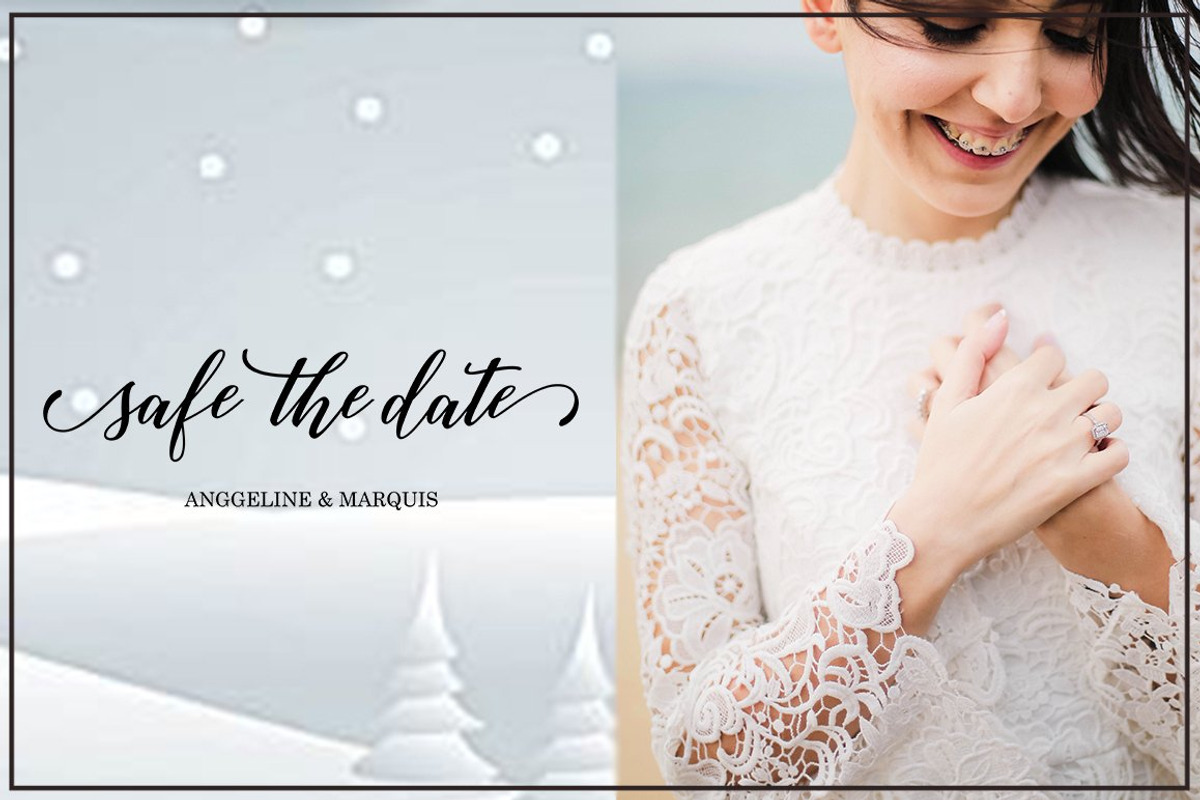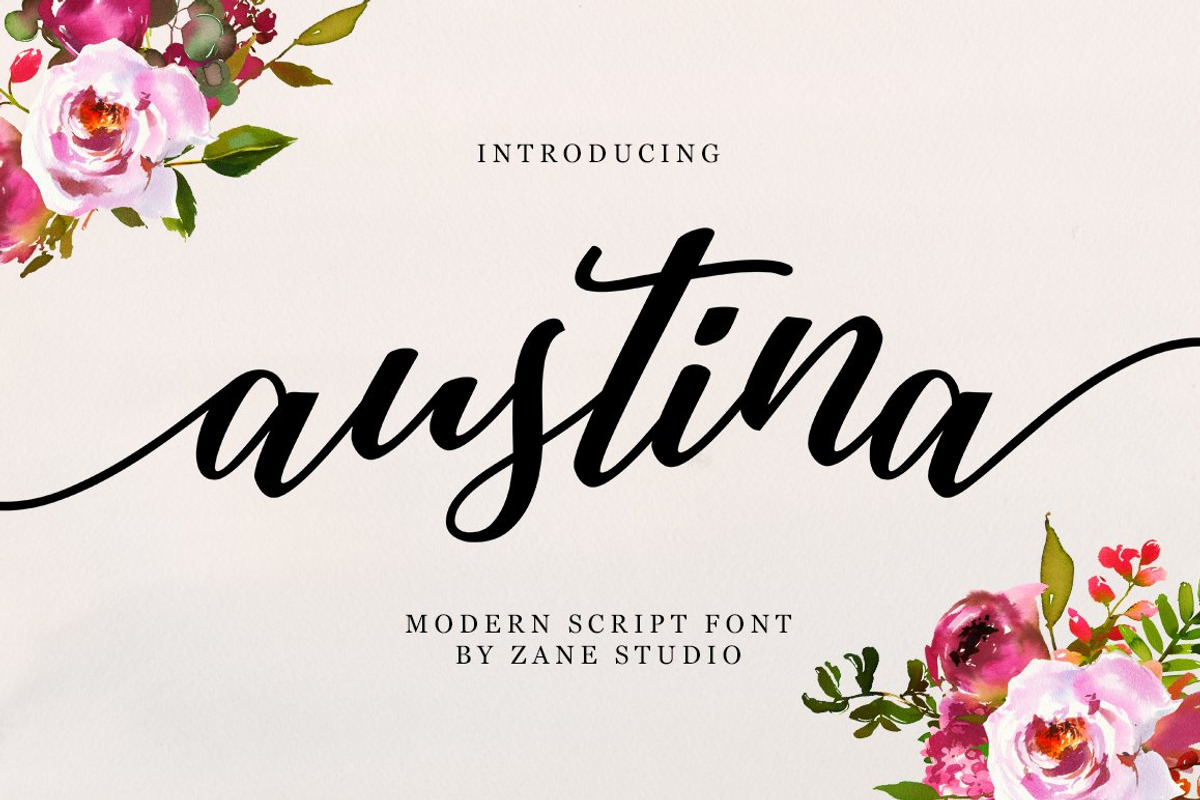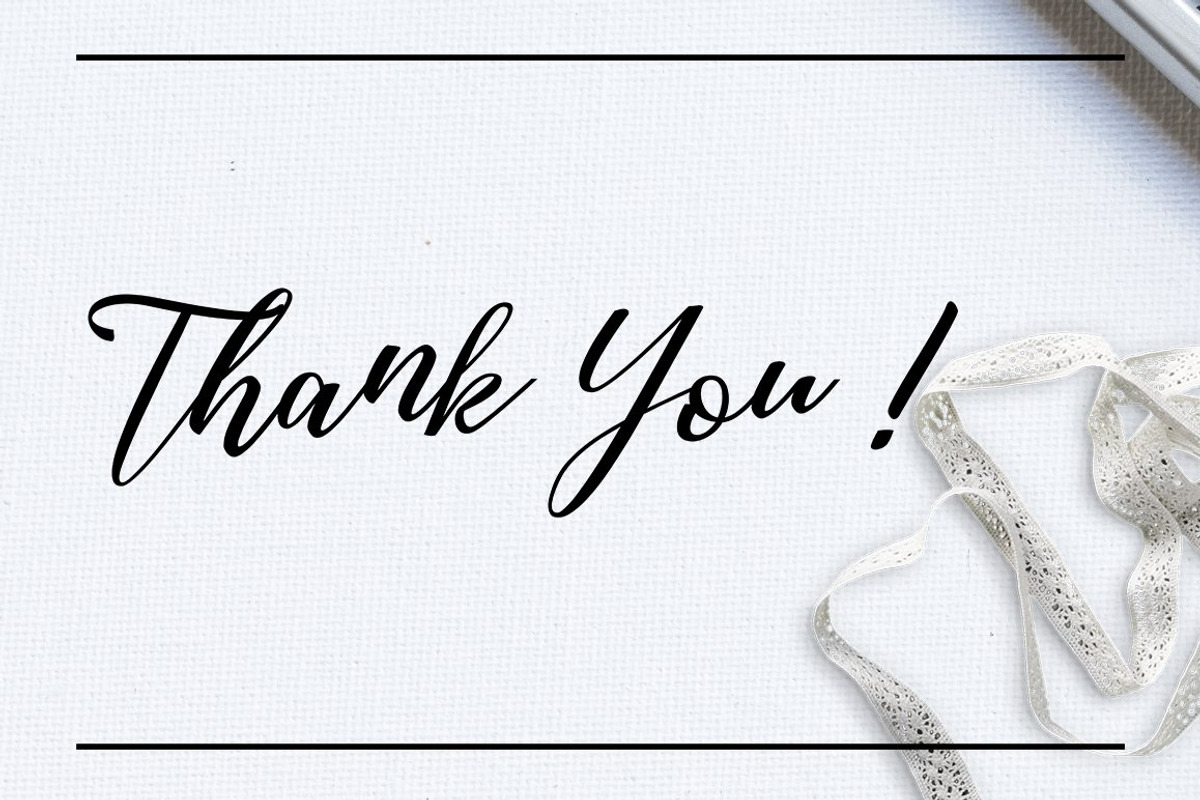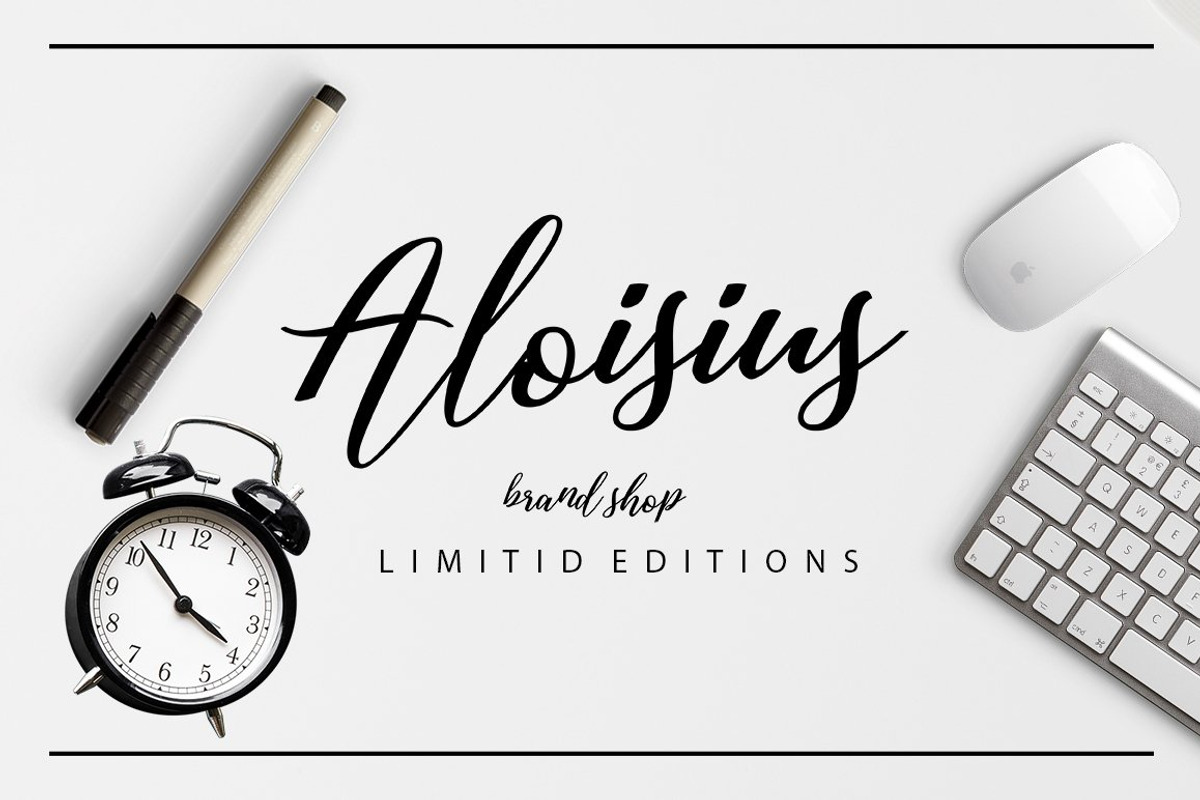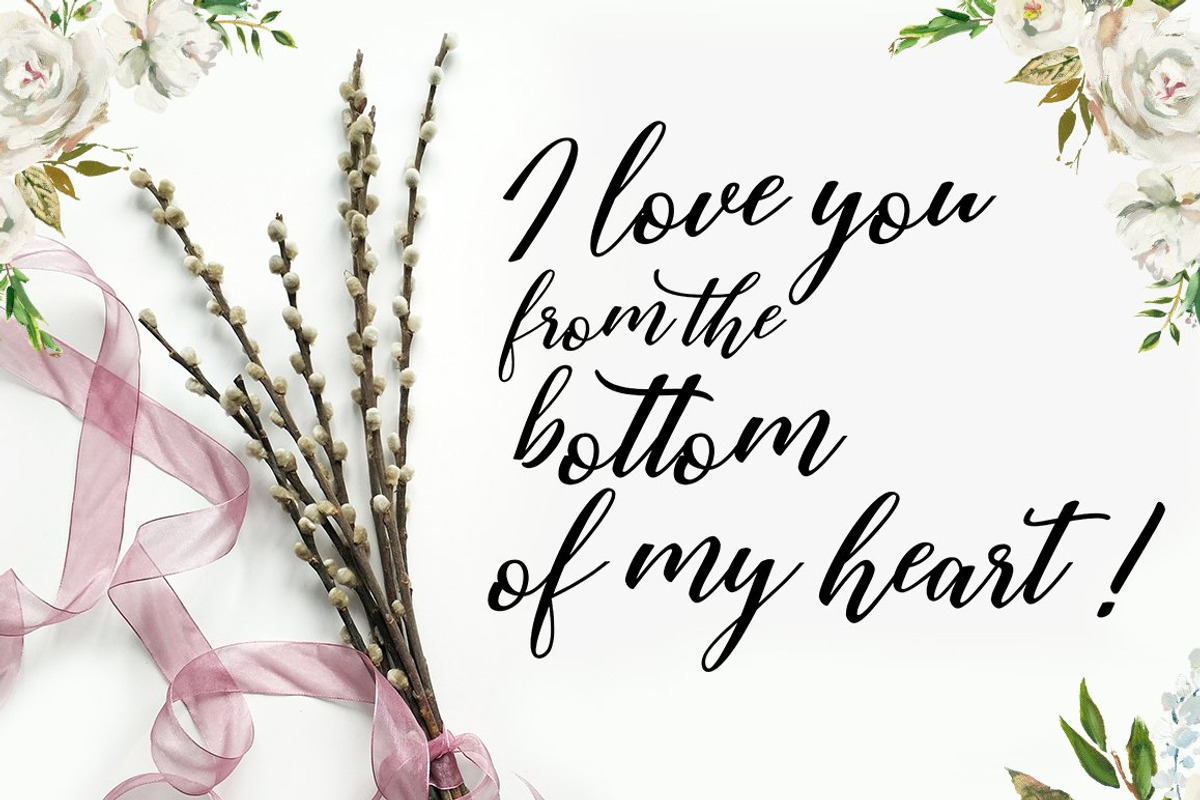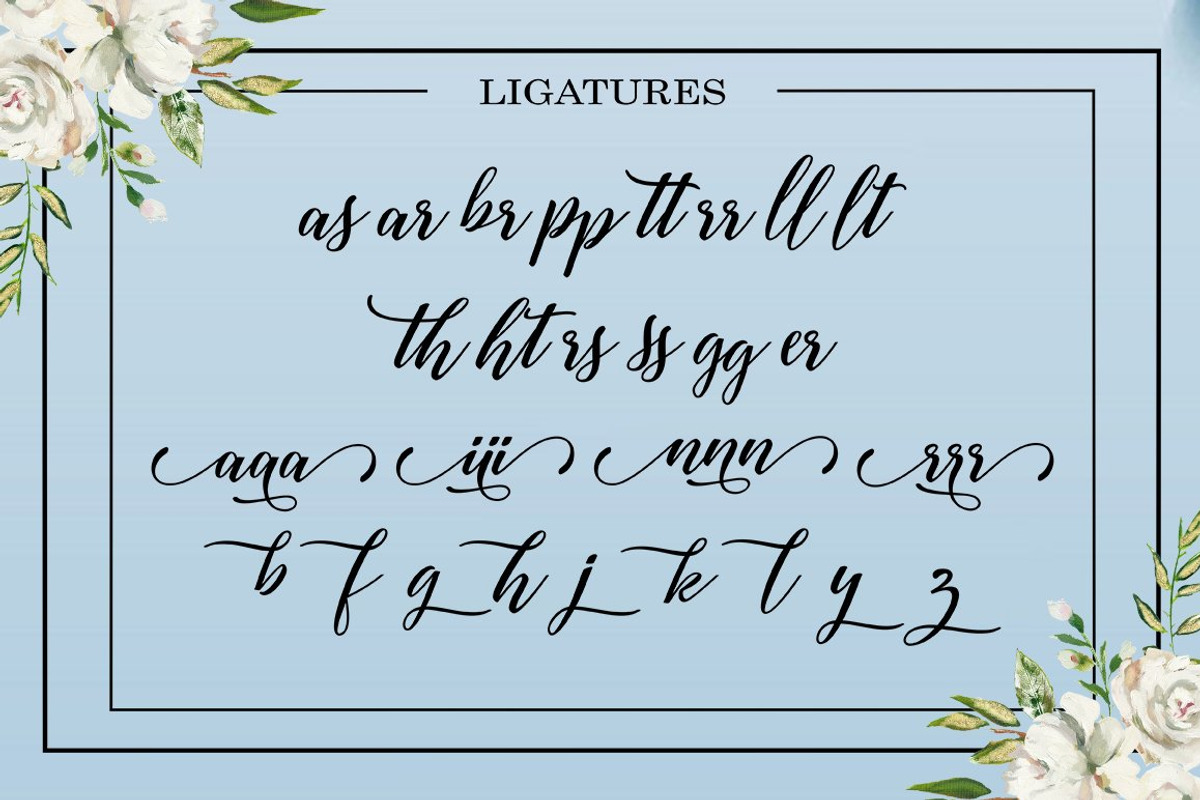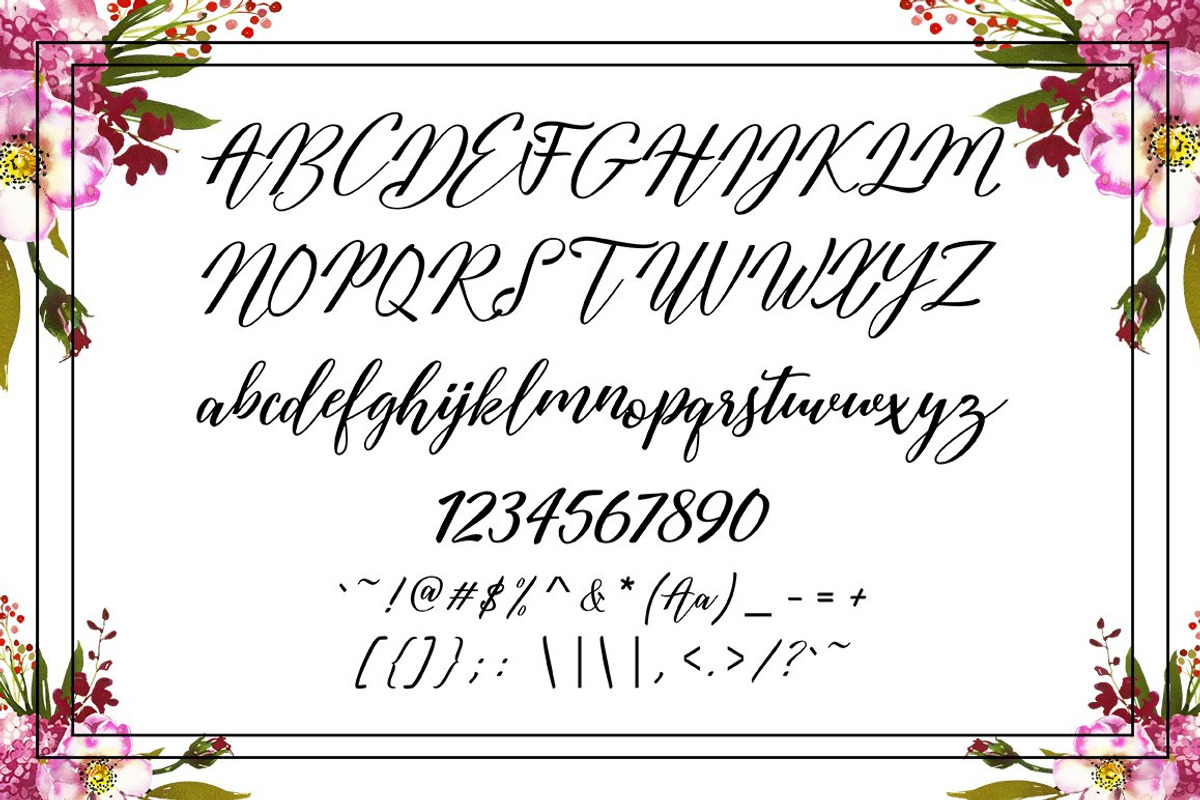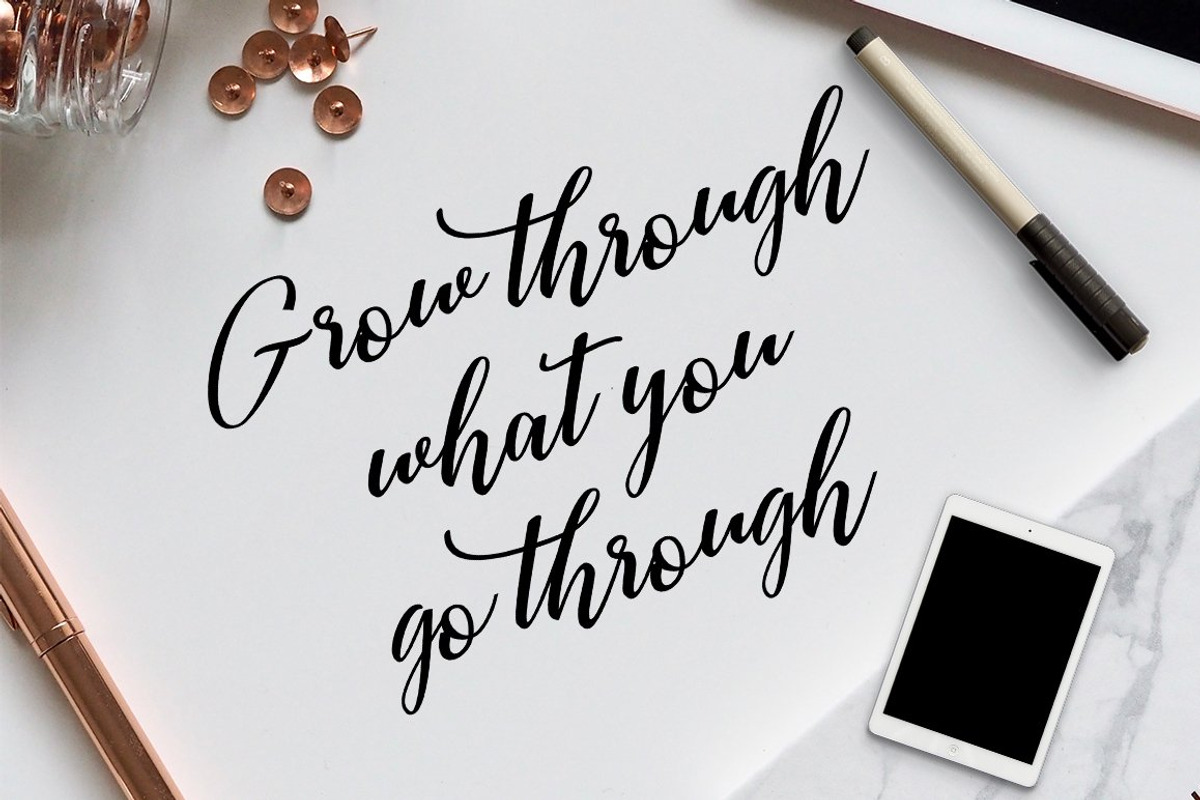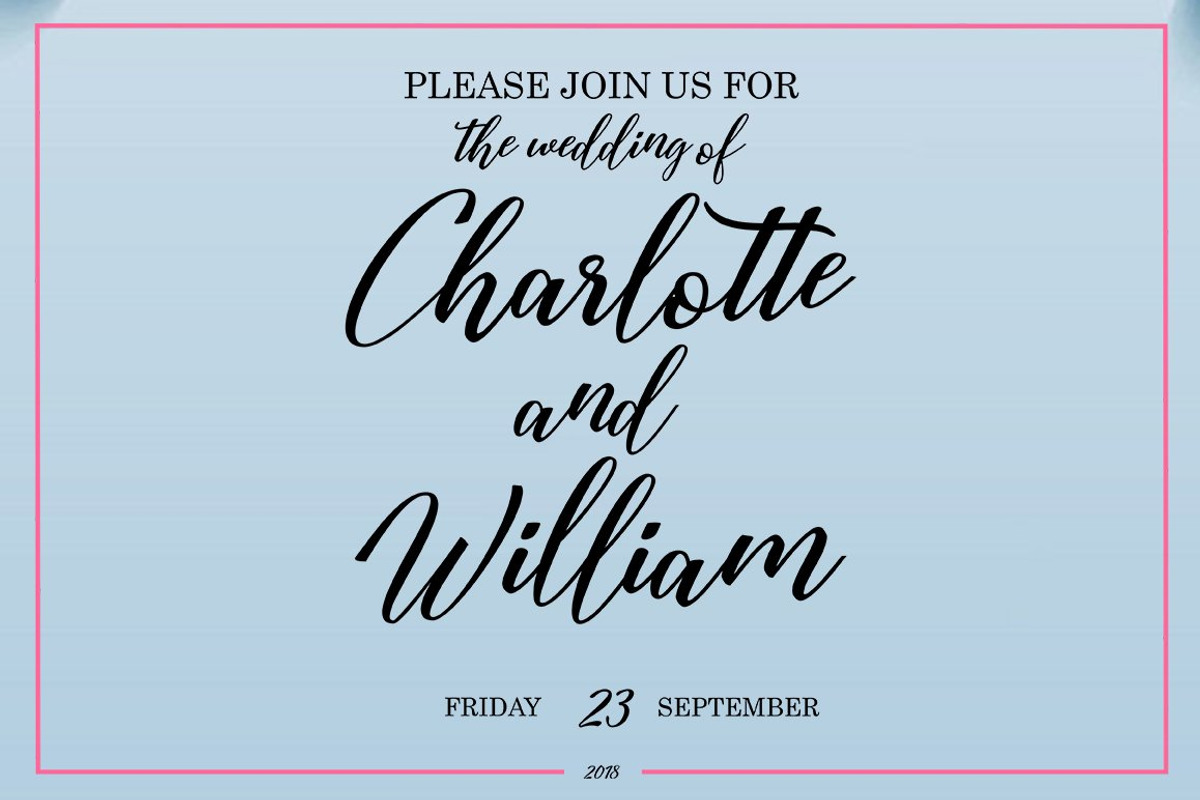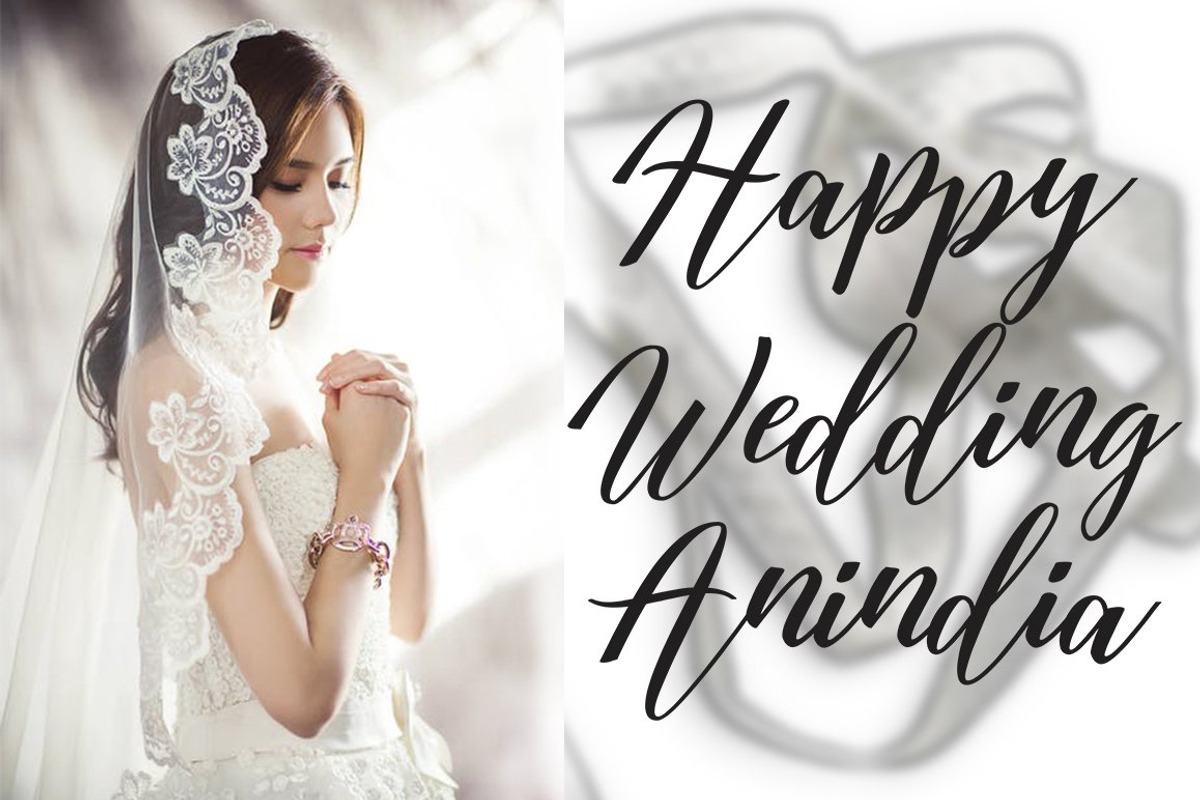
Austina Script
Austina Script is a new modern script font with an irregular baseline. Trendy and feminine style.Austina looks lovely on wedding invitations, thank you cards, quotes, greeting cards, logos, business cards and more. Perfect for using in ink or watercolour. Including initial and terminal letters, alternates and multiple language support.